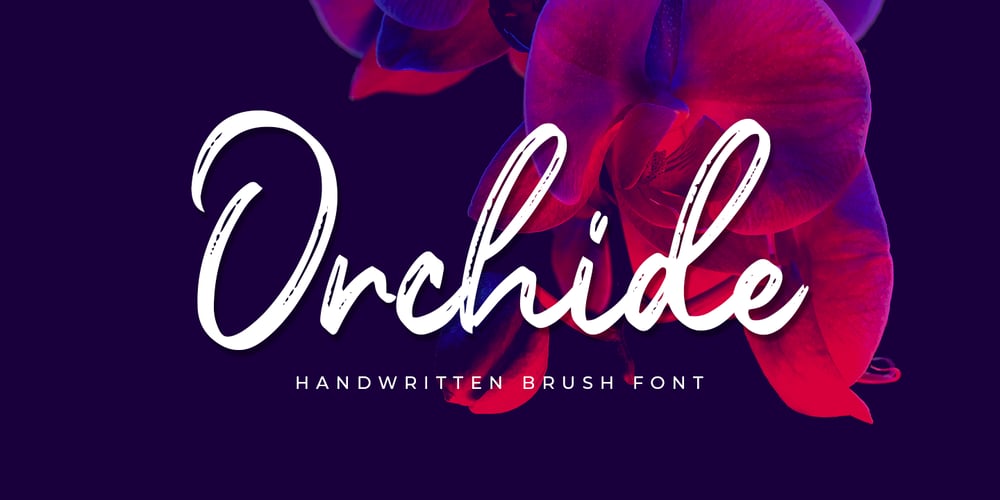
Orchide
Orchide font
Orchide Font Family was designed by Abdul Malik Wisnu and published by Almarkha Type. Orchide contains 1 styles and family package options. Introducing **Orchide** – Handwritten Brush is a handwritten script font with a Signature Style and classy style, this font is great for your creative projects such as watermark on photography, and perfect for logos & branding, photography, invitation, watermark,advertisements,product designs, stationery, wedding designs,label ,product packaging, special events or anything that need handwritting taste.